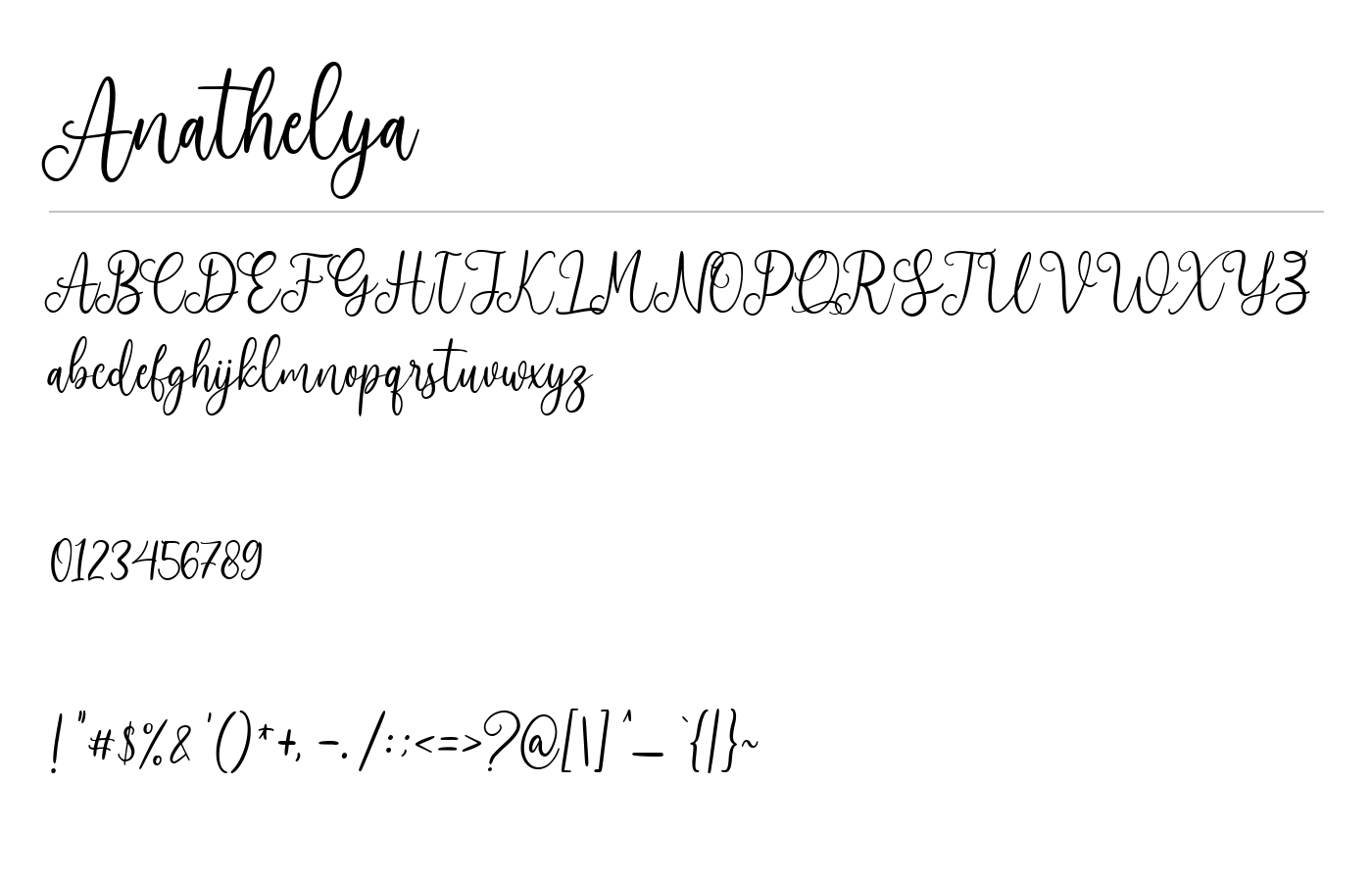
Anathelya is an elegant script font featuring delicate, flowing strokes with a handwritten charm. Its slender, graceful letterforms convey a refined and sophisticated mood, making it ideal for invitations, logos, and branding that seek a personal, artistic touch. Perfect for projects requiring a stylish yet approachable feel, this font shines in creative and decorative uses.
Anathelya Font
About Anathelya Font
| Font family | Anathelya Font |
| Designer | MaulanaCreative |